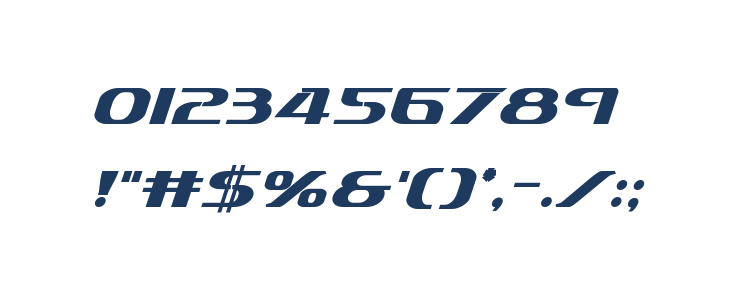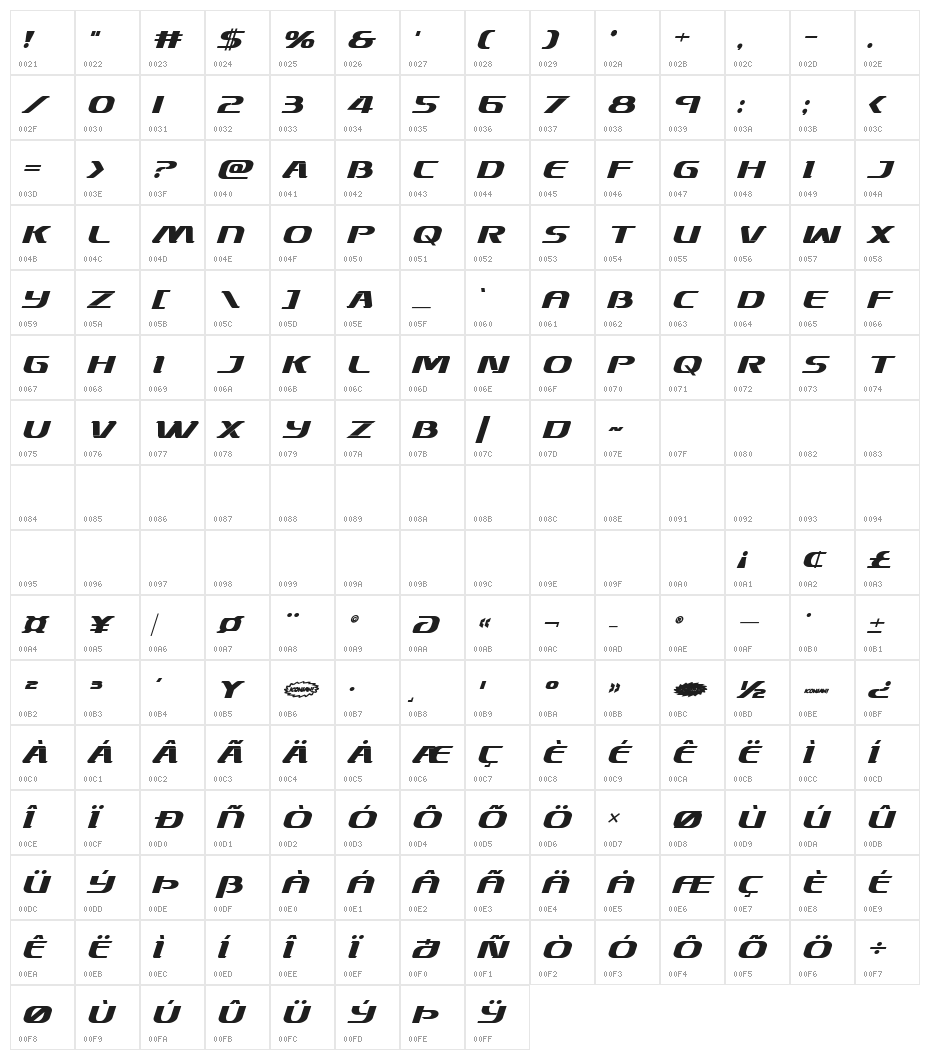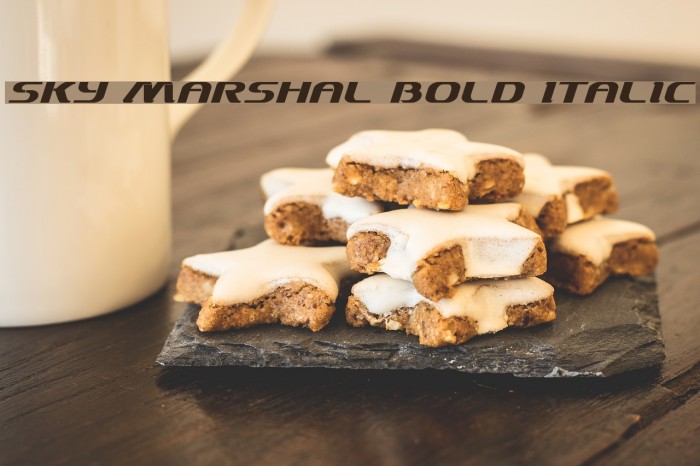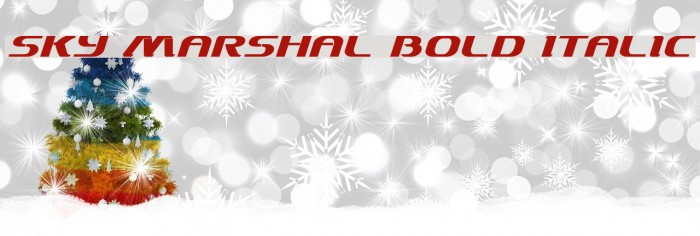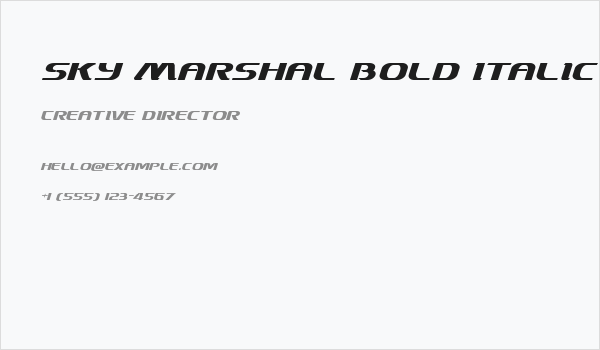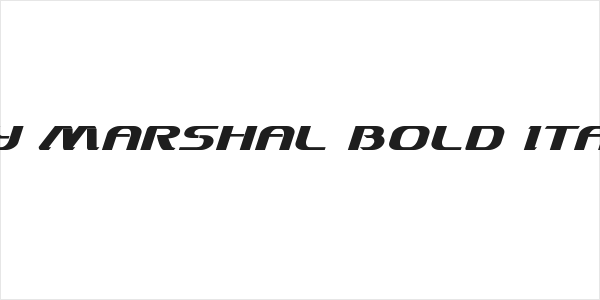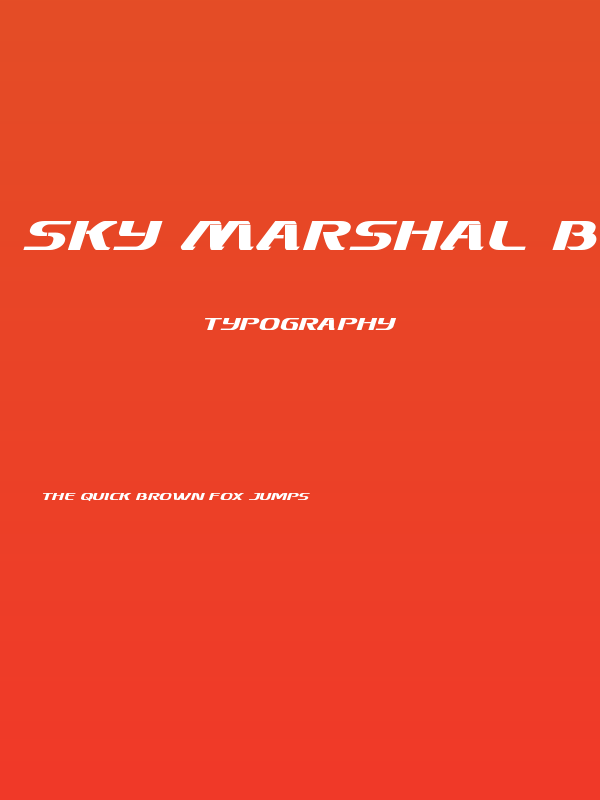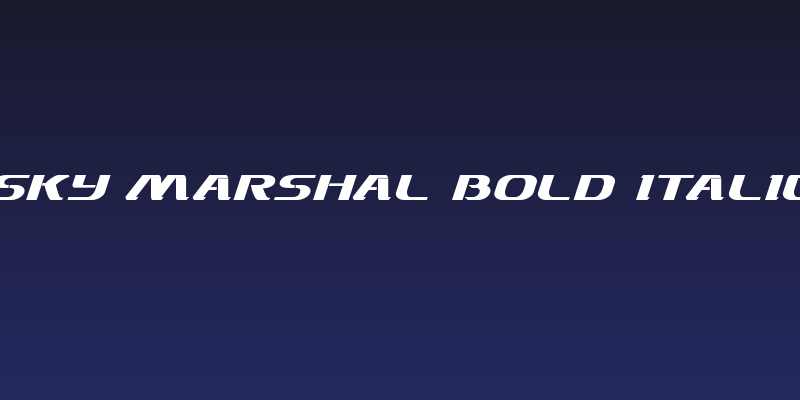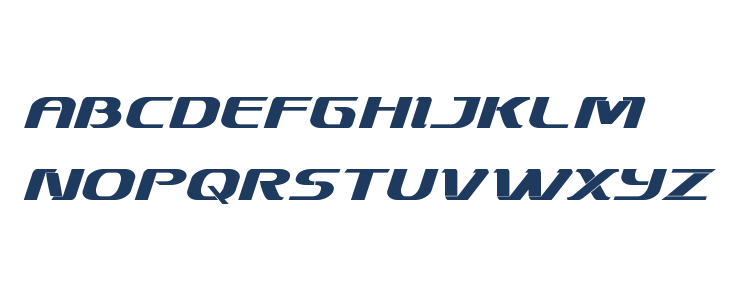
Sky Marshal Bold Italic Font
Sky Marshal Bold Italic Description
This font features a bold and italicized style with a futuristic and dynamic appearance. The characters are slanted, giving a sense of motion and speed, which is enhanced by the sharp, angular cuts and edges. The uppercase letters are particularly striking, with a consistent slant and strong presence. The numerals and special characters maintain the same bold and italicized characteristics, ensuring uniformity across all glyphs. This font's design is ideal for projects that require a modern and energetic look.
Proposed ProjectsIdeal for sci-fi themed designs, technology branding, sports team logos, and dynamic posters.